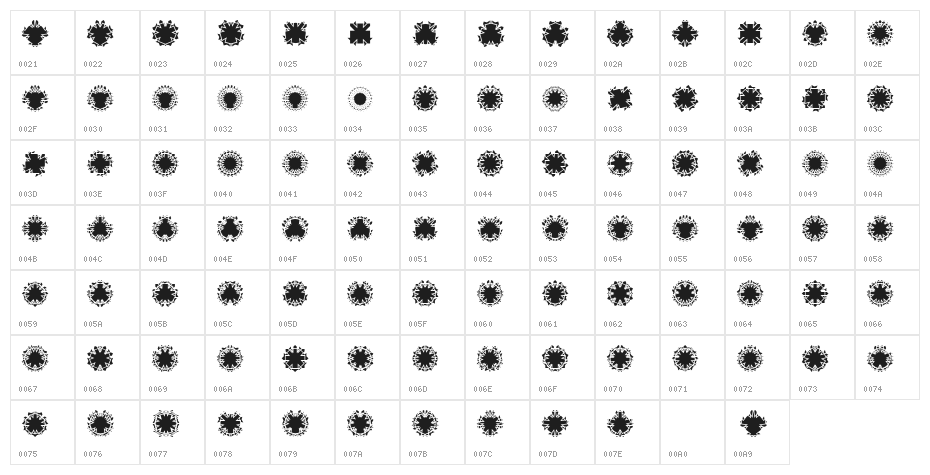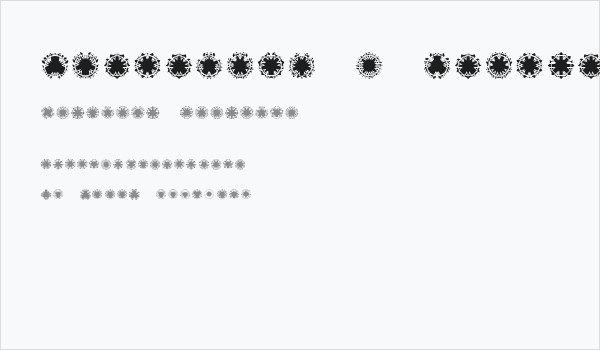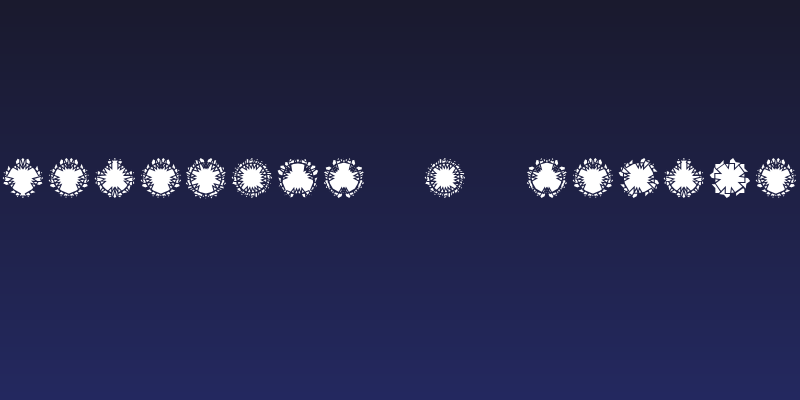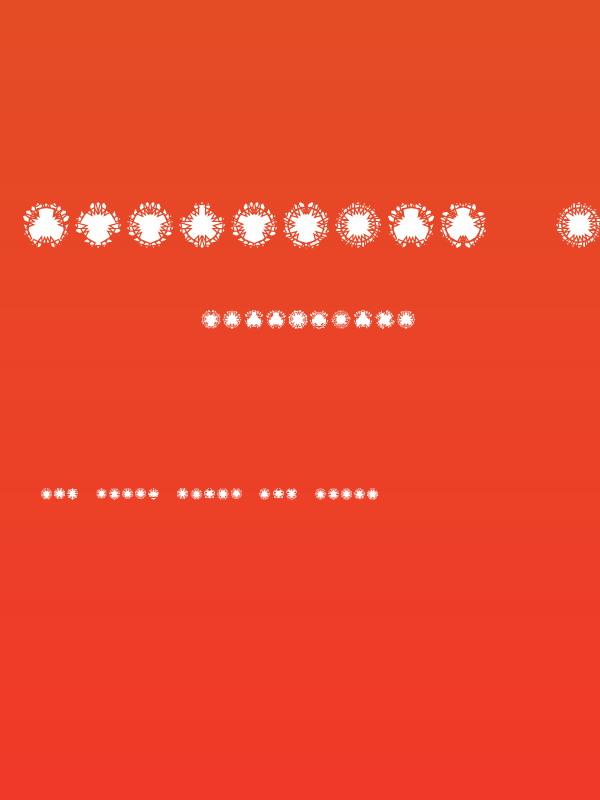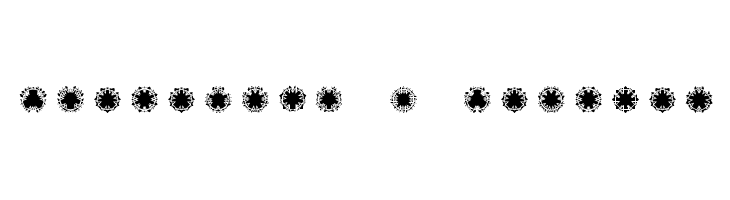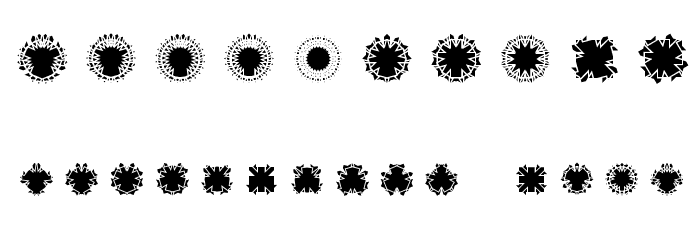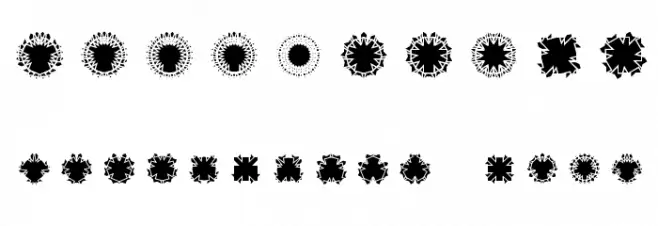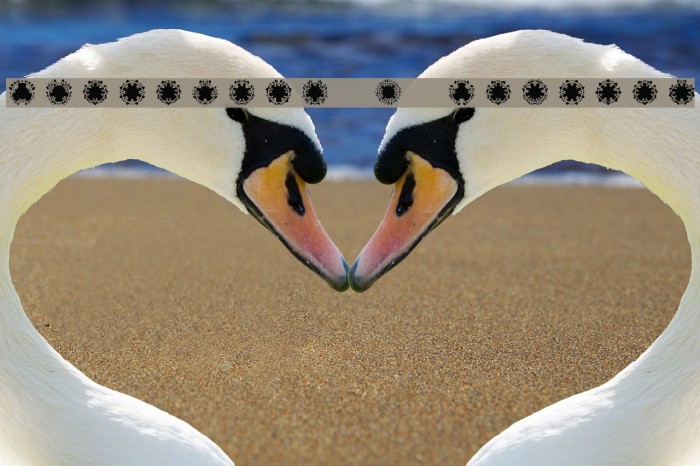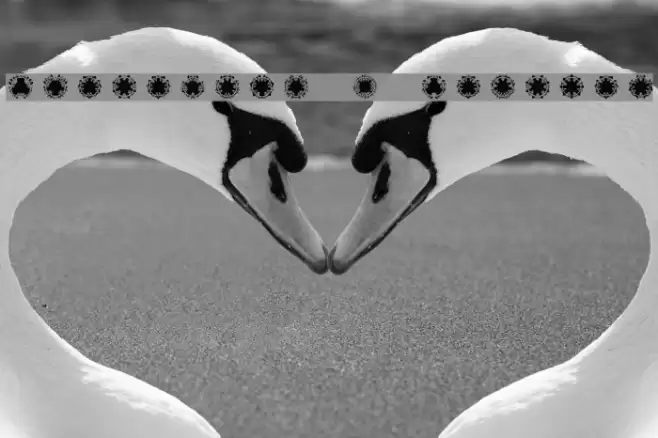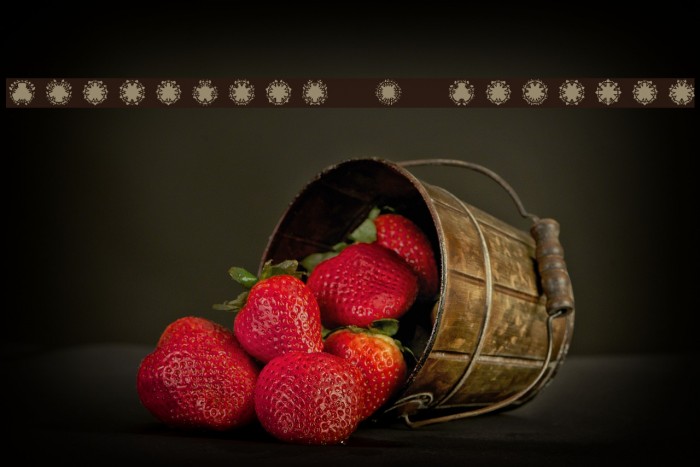
Ovulution I Nucleus Font
Ovulution I Nucleus Description
This unique and artistic font features characters that resemble intricate, abstract shapes with a spiky, organic appearance. Each letter and symbol is crafted with a complex design, making it stand out as a decorative element. The font's style is reminiscent of natural forms, possibly inspired by biological or microscopic structures, giving it a distinct and eye-catching look. The characters are bold and densely packed with details, creating a striking visual impact. This font is ideal for projects that require a creative and unconventional aesthetic, offering a fresh and innovative approach to typography.
| Use Case | Logos, Posters, Artistic projects |
| Proposed Projects | Ideal for artistic projects, album covers, posters, and creative branding that require a unique and unconventional aesthetic. |